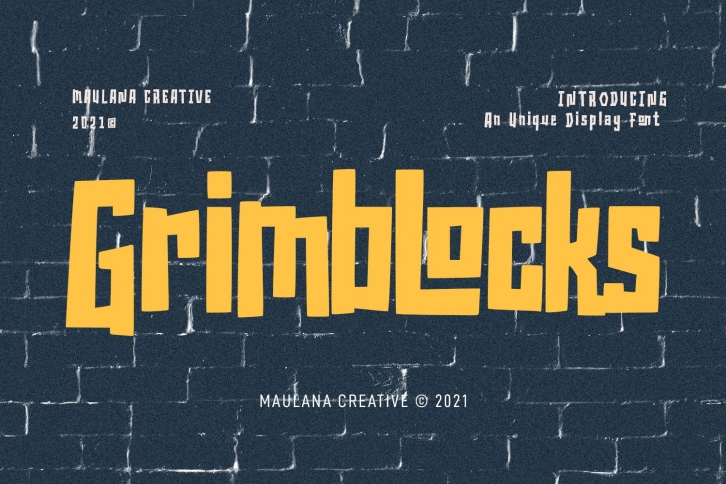
Grimblocks Display is a beautiful font that was designed by Maulana Creative. It's a great choice for designers and creatives who need such a font. It was released on September 15, 2021 and the file size is 17.52 MB. Grimblocks Display may give a more youthful, expressive and casual look to your project. It is a very beautiful, refined, elegant, and high-quality font.